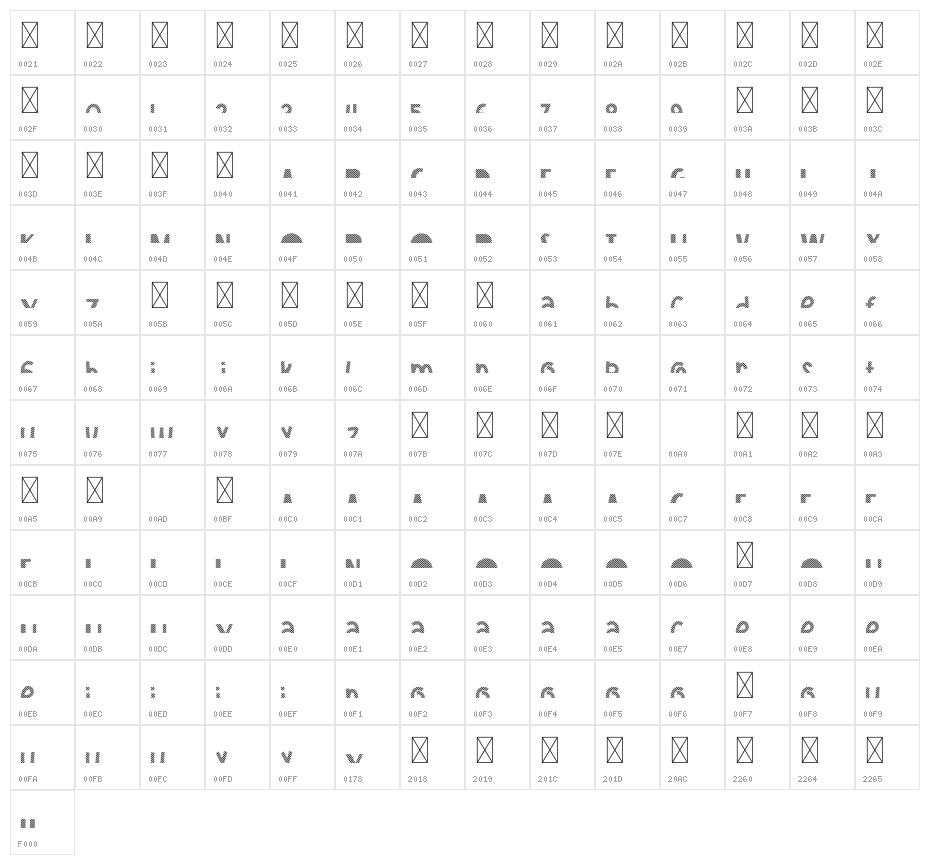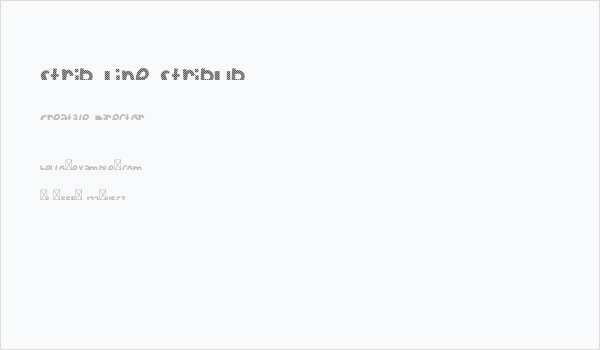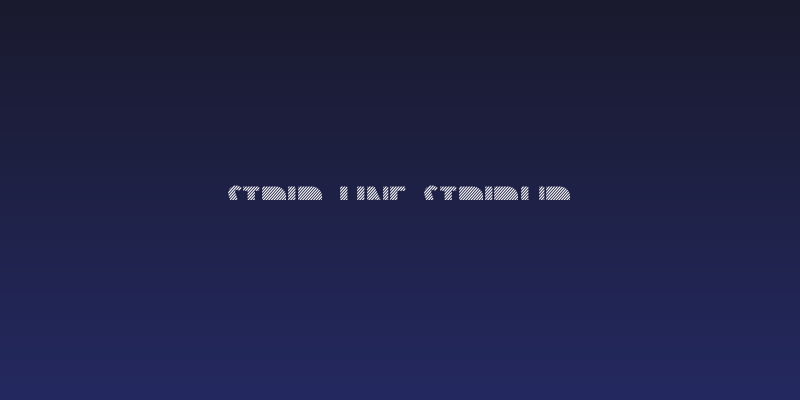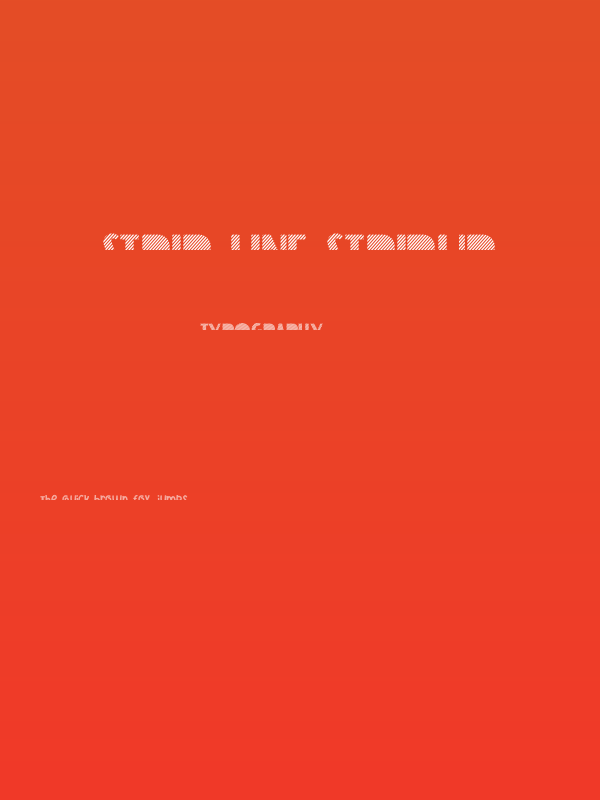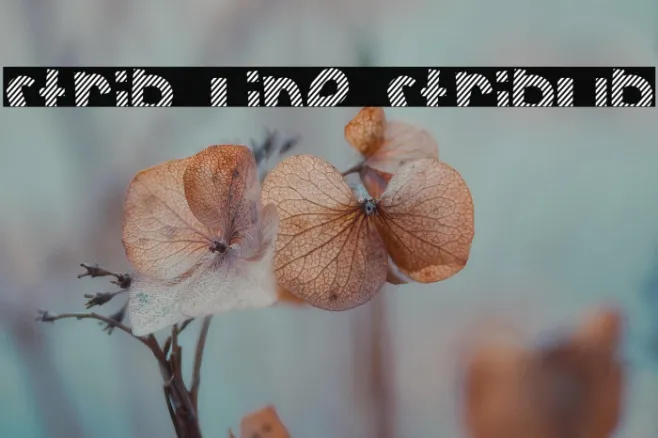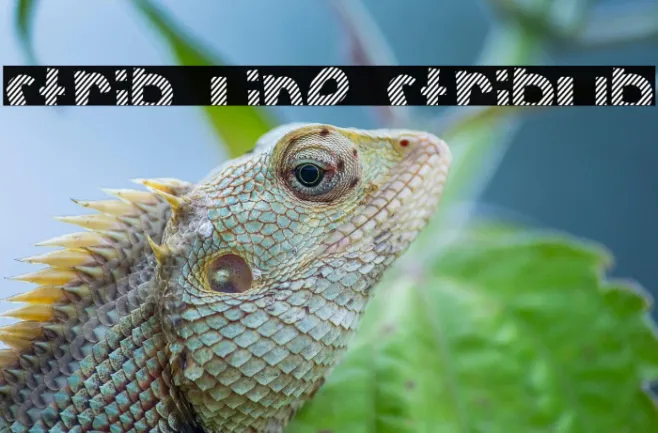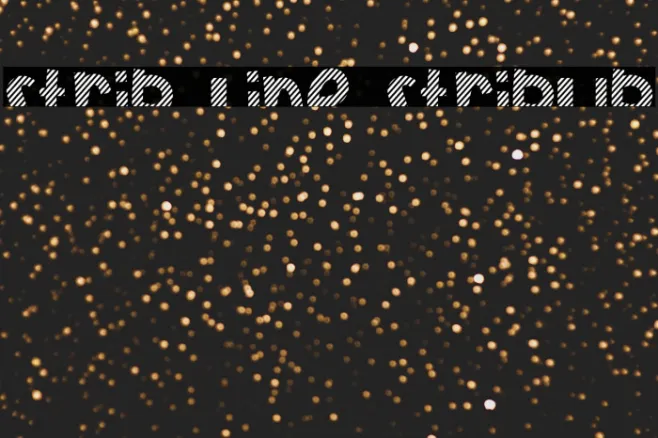
Strip Line StripUp Font
Strip Line StripUp Description
This font features a unique design with diagonal striping across each character, creating a dynamic and eye-catching effect. The characters are bold and geometric, with a futuristic and modern aesthetic. The uppercase and lowercase letters maintain a consistent style, while the numbers and special characters follow the same striped pattern. The overall look is both decorative and functional, making it suitable for creative projects that require a distinctive visual impact.
| Proposed Projects | Ideal for branding, posters, digital art, and any project needing a modern, eye-catching typeface. |